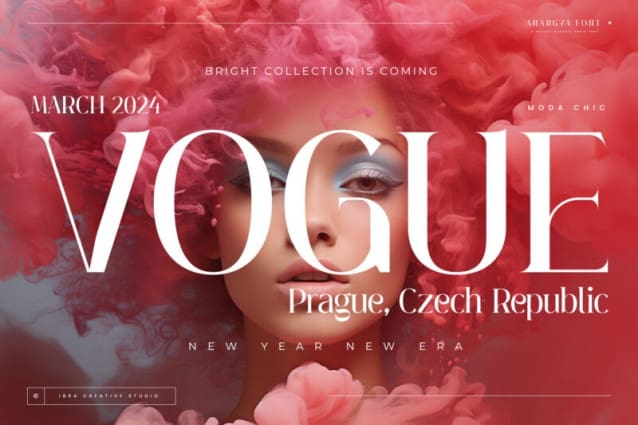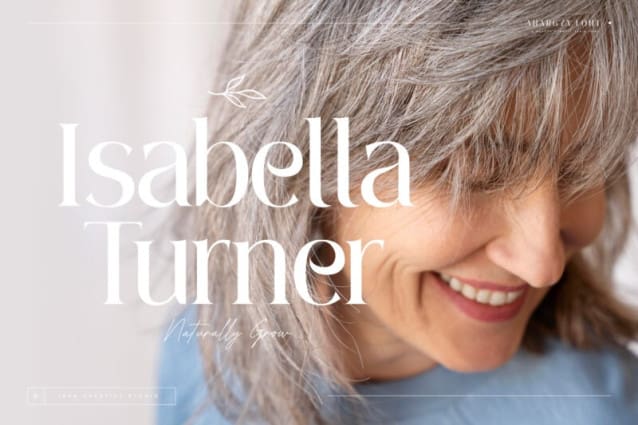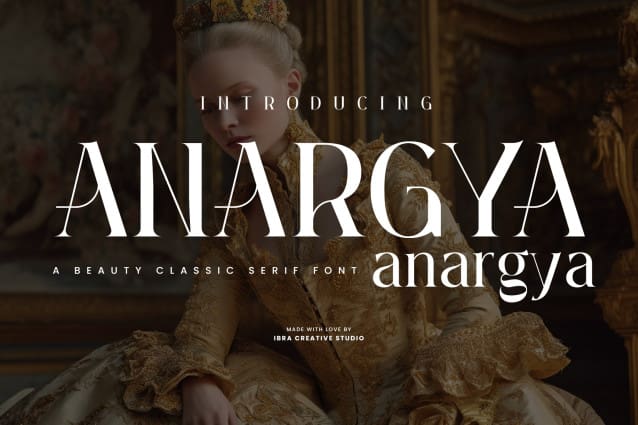
Anargya Font
Anargya Font is a timeless beauty classic serif typeface that exudes elegance and sophistication. Its meticulously crafted letterforms showcase a harmonious balance between thick and thin strokes, creating a sense of timeless grace and legibility. With a refined, high-contrast design, Anargya Font brings a touch of traditional charm to contemporary designs, making it a versatile choice for branding, editorial, and luxury aesthetics. Its gracefully tapered serifs and graceful curves imbue it with an air of sophistication and refinement, making it a perfect choice for projects that demand a timeless, classic typographic style.